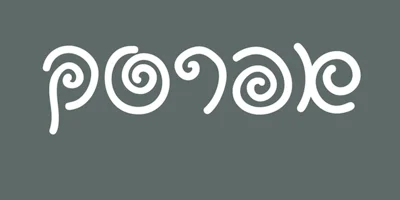
Spirala MF Font
Spirala MF Font is perfect for dynamic motion graphics, spiral galaxy documentaries, kinetic art exhibitions, dance studio branding, cyclical process diagrams, whirlpool spa signage, energy healing centers, and hypnotic visual design projects requiring fluid movement aesthetics.
What makes Spirala MF Font exciting is its mesmerizing spiral dynamics that capture the infinite beauty of natural rotation and cosmic movement through flowing letterforms. This captivating typeface features curved character construction with spiral-inspired details that evoke the hypnotic patterns found in galaxies, hurricanes, and DNA helixes, making it ideal for projects requiring dynamic energy and the representation of continuous motion in their visual storytelling.
The Spirala MF Font family includes regular and bold weights, plus spiral variations and kinetic decorative elements that enhance the dynamic aesthetic with swirling typography options and motion-inspired design elements for movement-focused applications.
This dynamic typeface delivers exceptional kinetic appeal and cosmic sophistication, making Spirala MF Font an essential resource for motion-based and energy-focused design projects. The font's spiral character makes it perfect for organizations wanting to convey continuous movement and natural flow in their brand communications. Dance academies and energy therapy centers particularly value its ability to communicate dynamic motion and spiritual transformation instantly to audiences seeking movement and wellness experiences. The fluidly designed letterforms ensure readability while preserving the hypnotic appeal of spiral movements across all applications from meditation center materials to astrophysics presentations. Whether you're creating materials for cosmic planetarium shows or developing branding for kinetic sculpture exhibitions, this font provides the perfect combination of natural dynamics and artistic expression. Creative professionals consistently choose this typeface for projects requiring that ideal balance of cosmic authenticity and visual magnetism, making it invaluable for communications that celebrate both natural phenomena and the mesmerizing beauty of perpetual motion.